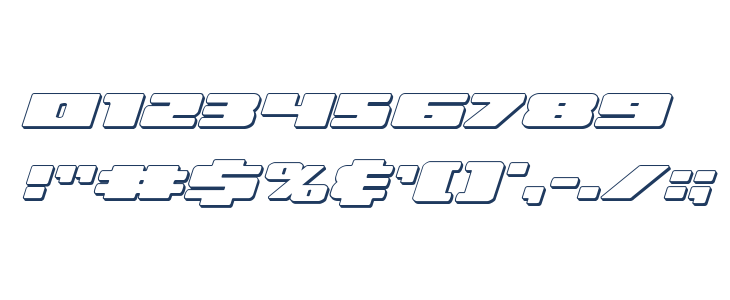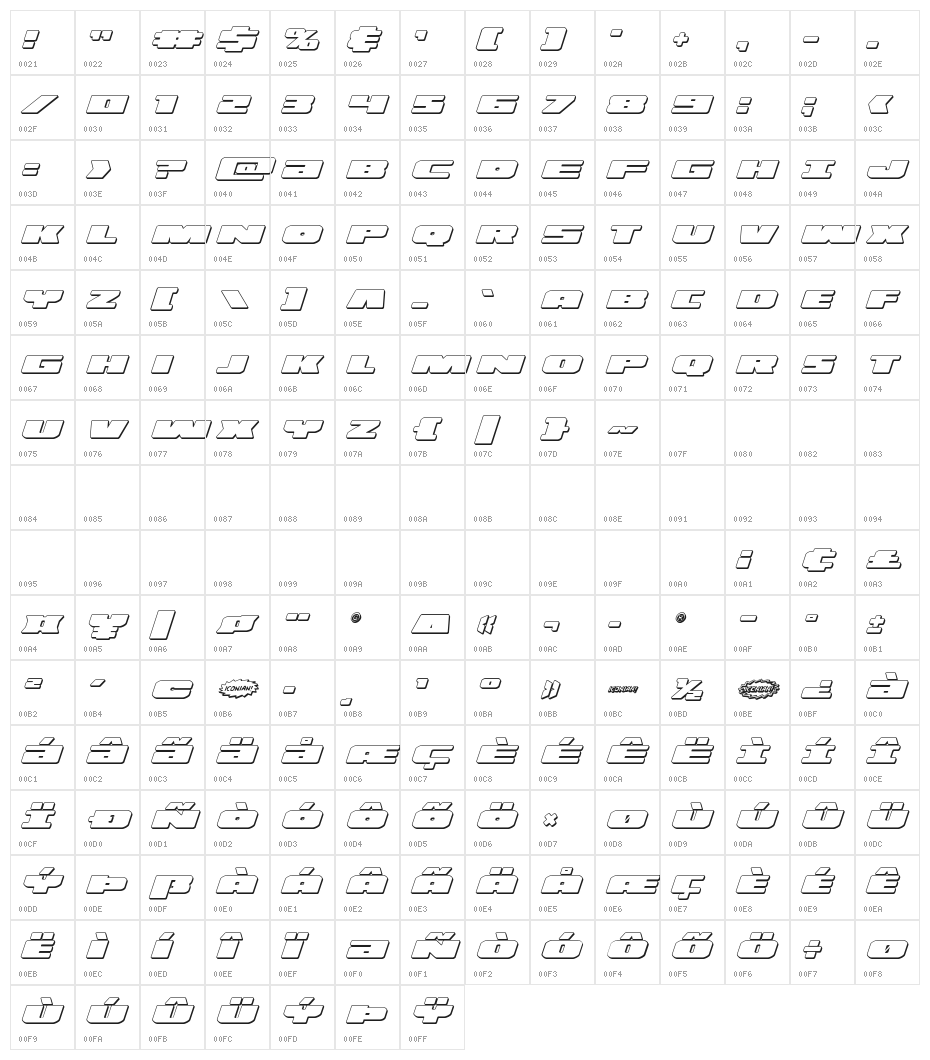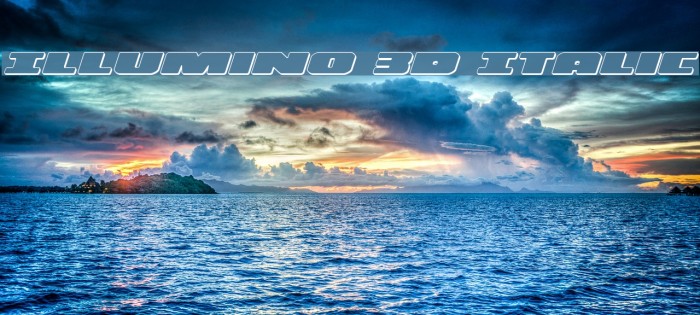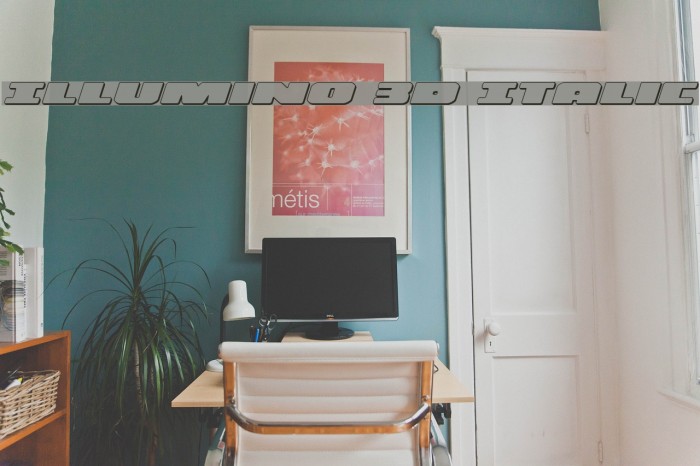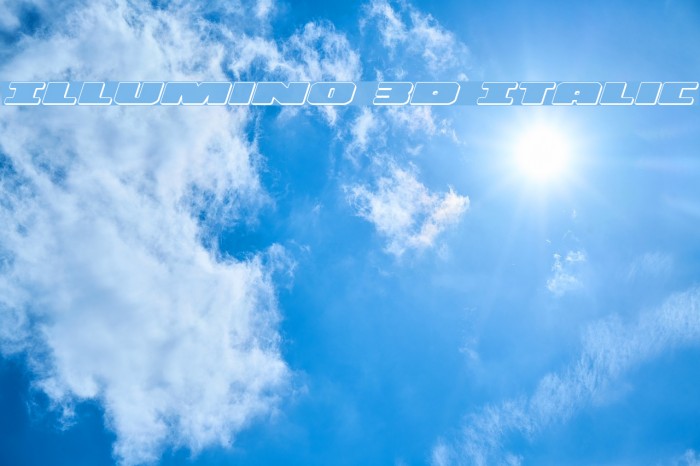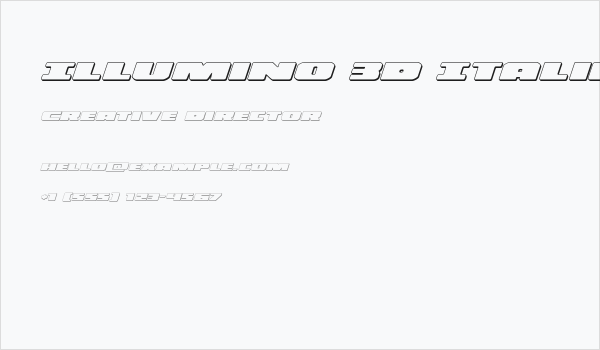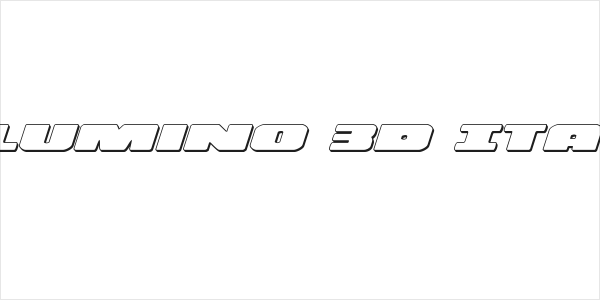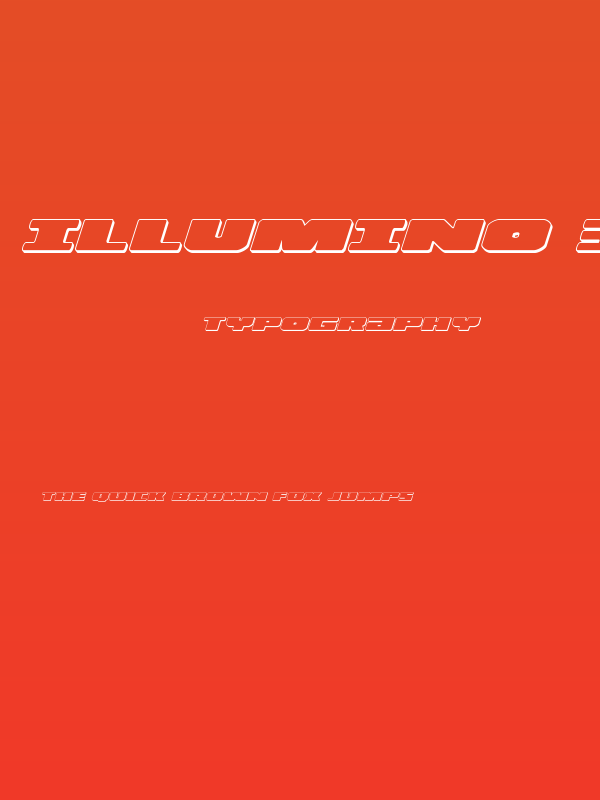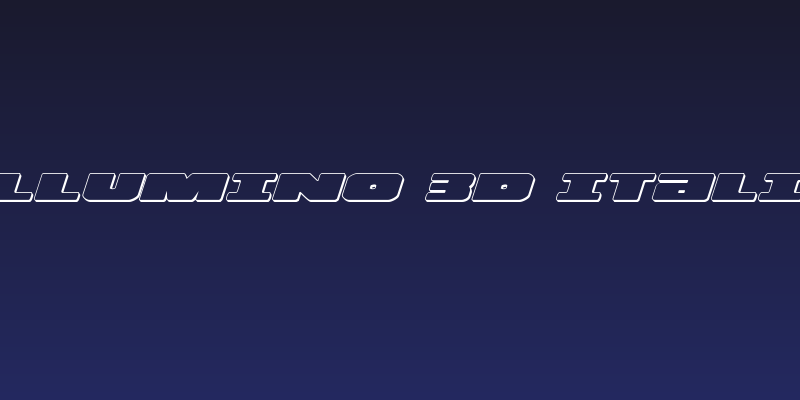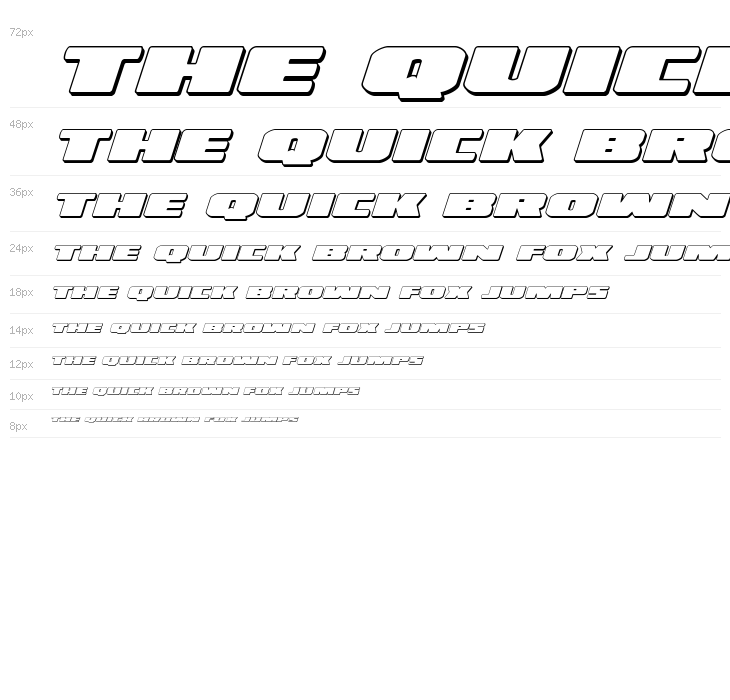
Illumino 3D Italic Font
Illumino 3D Italic Description
This font features a bold, three-dimensional appearance with a distinct italic slant, giving it a dynamic and futuristic look. The characters are outlined, creating a hollow effect that enhances the 3D illusion. The geometric shapes and sharp angles contribute to its modern and tech-inspired aesthetic. Each letter and number is uniformly styled, maintaining consistency across the font. The special characters are designed to match the overall theme, ensuring a cohesive look throughout.
| Proposed Projects | Ideal for sci-fi themed projects, video game titles, tech company logos, and futuristic posters. |